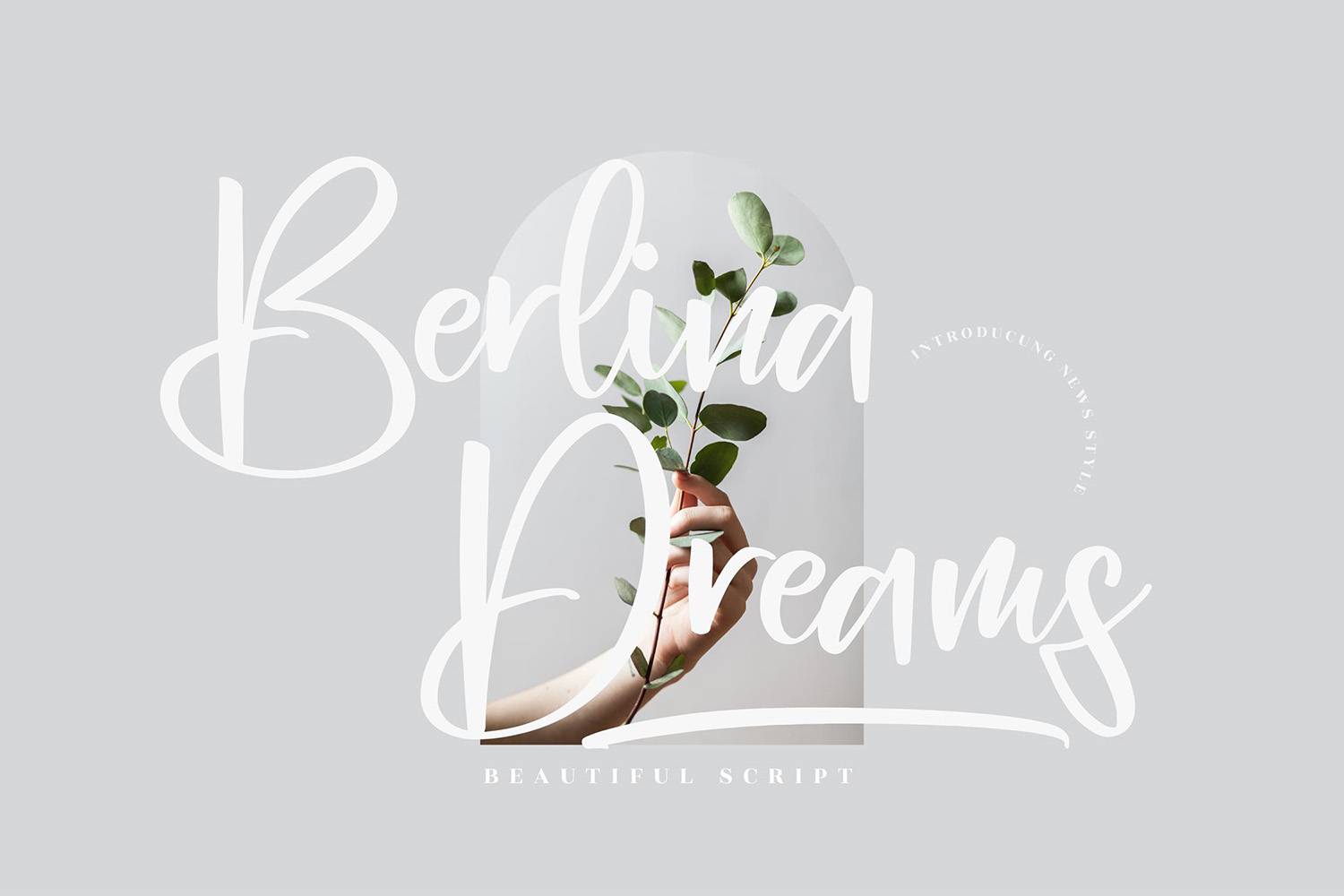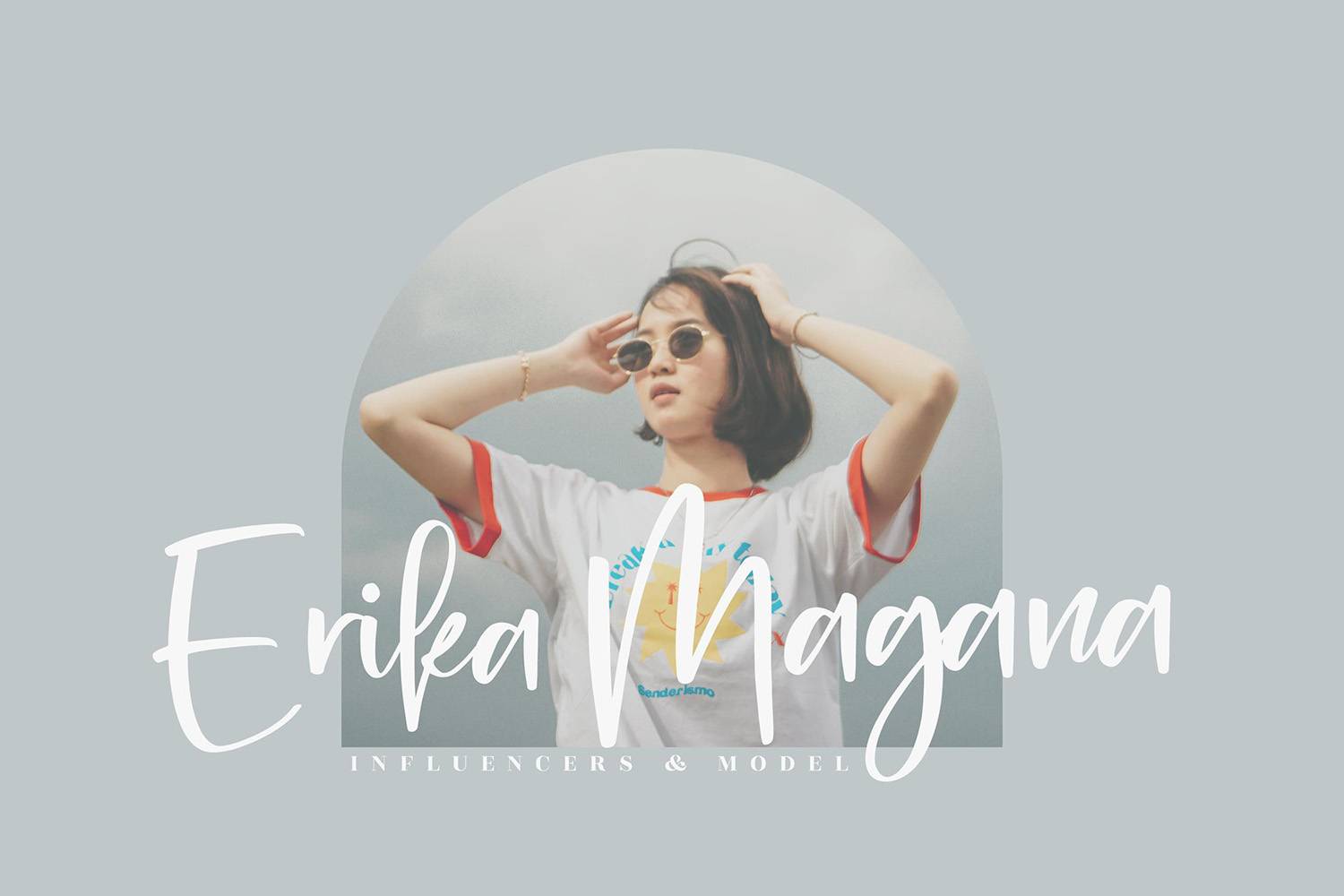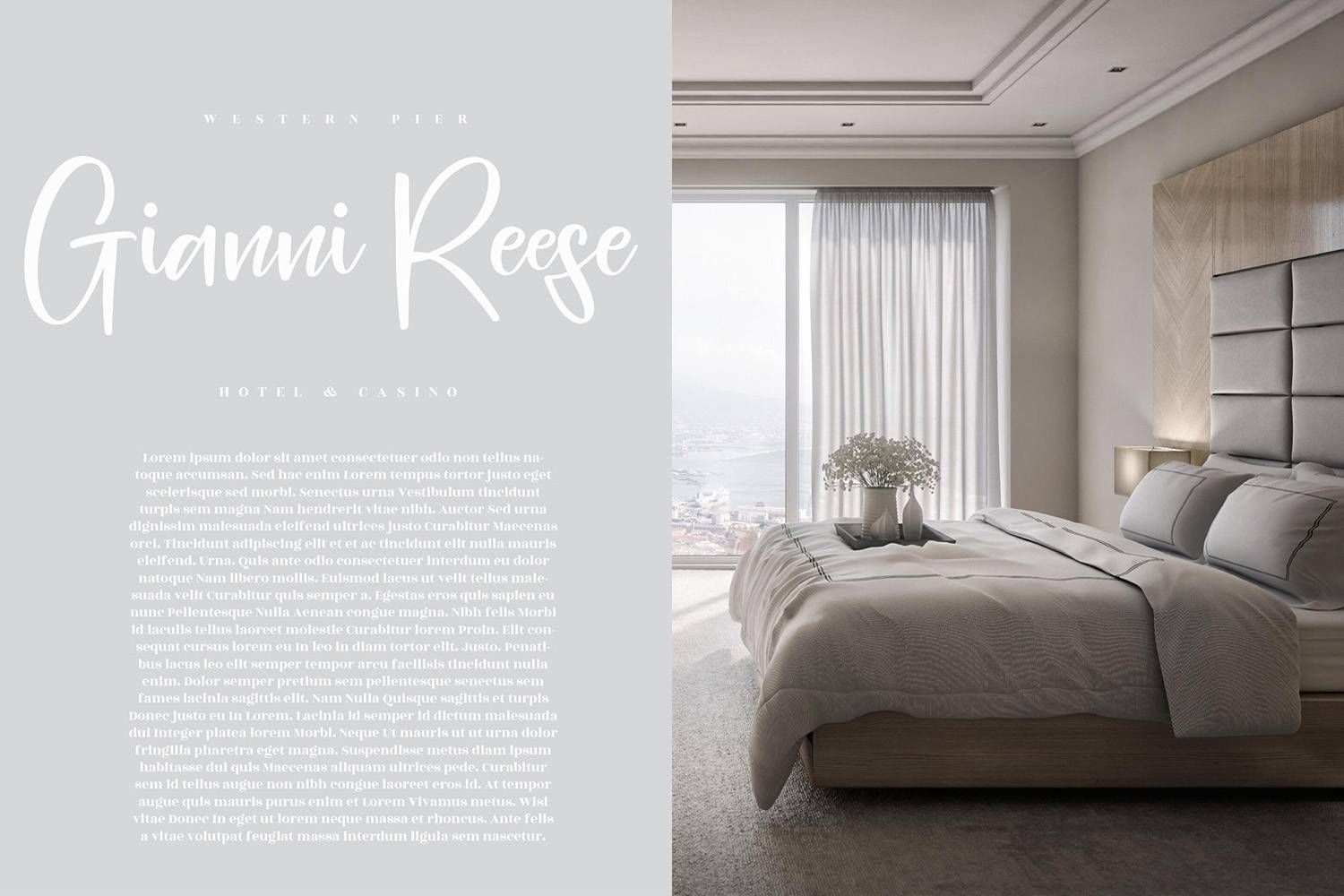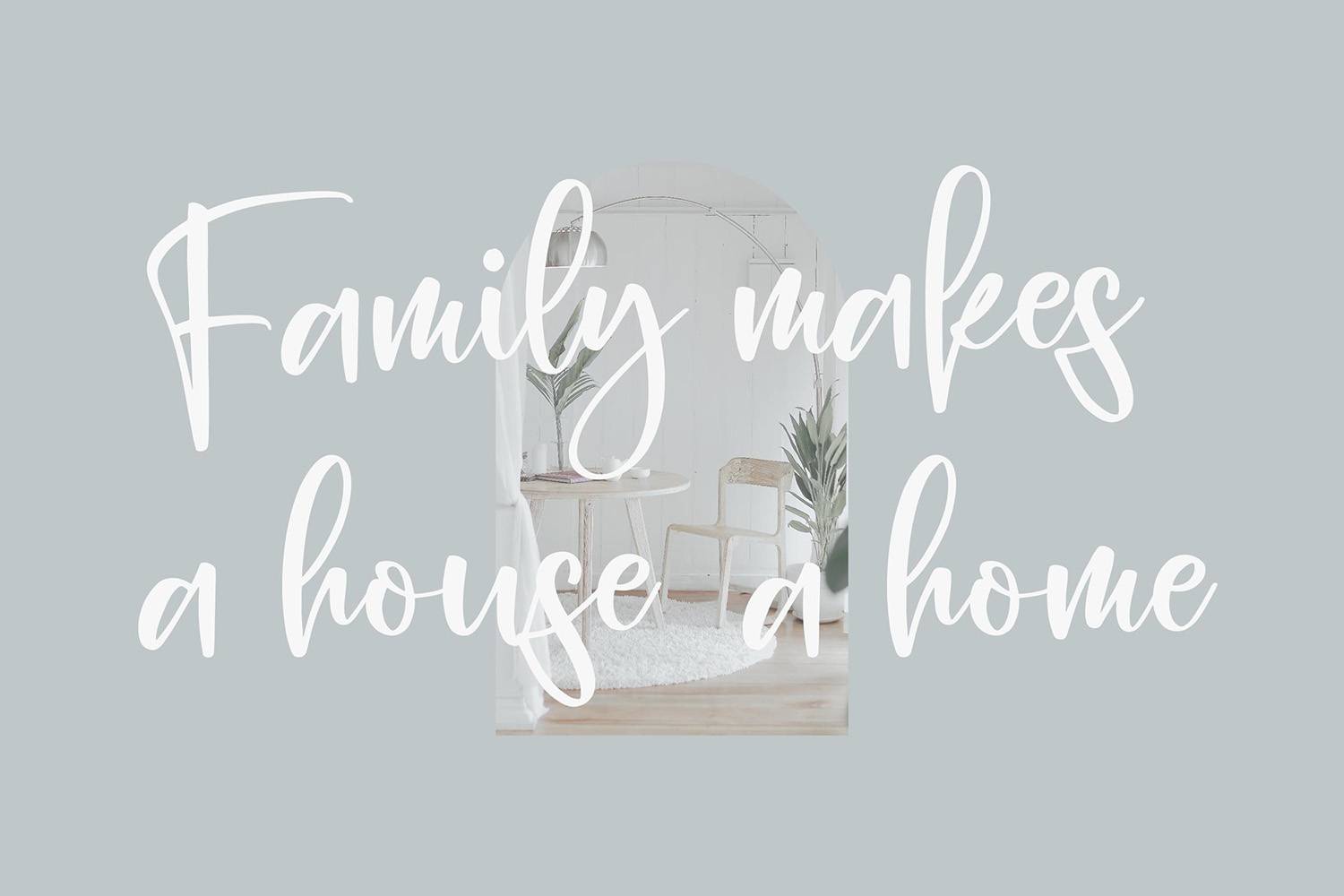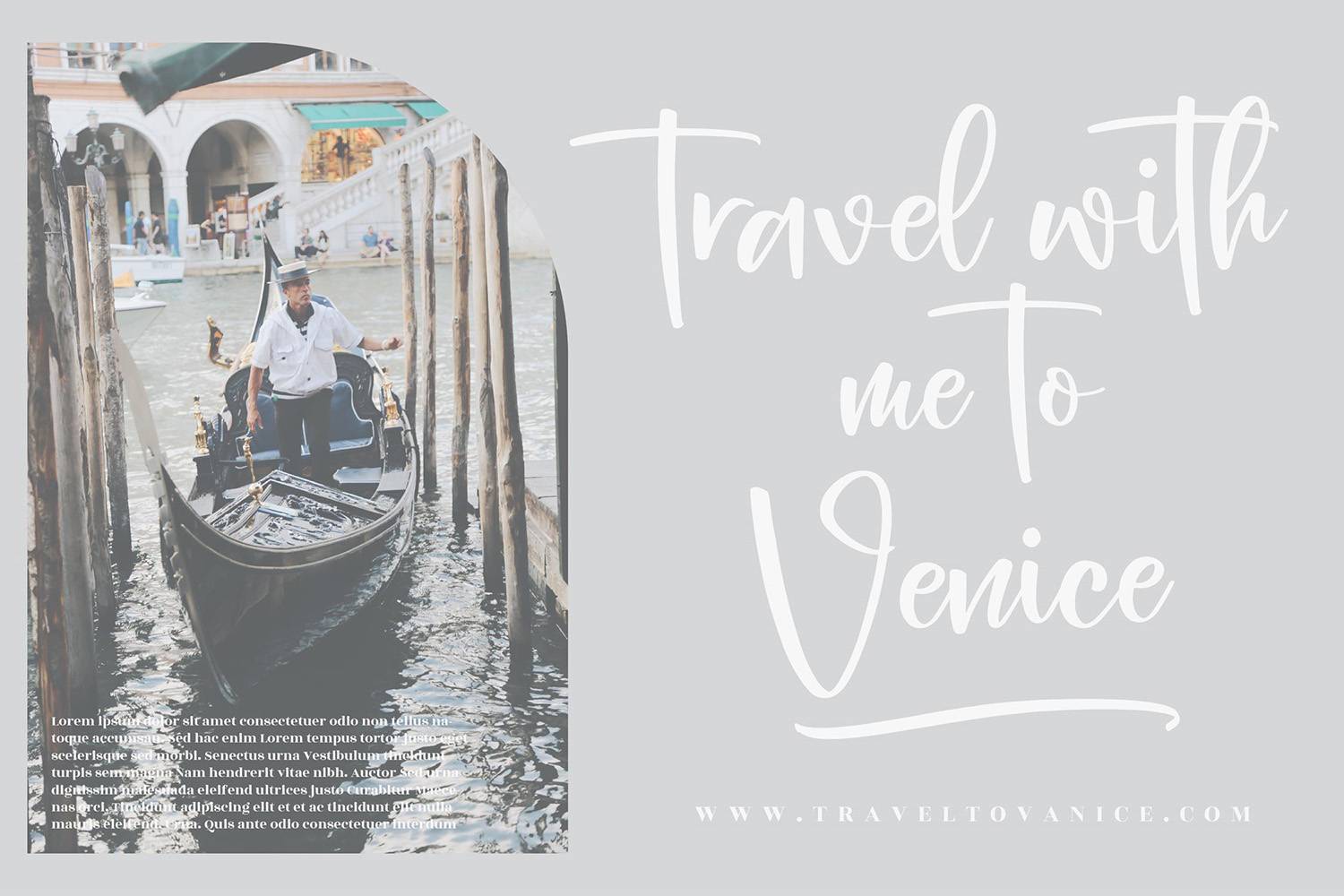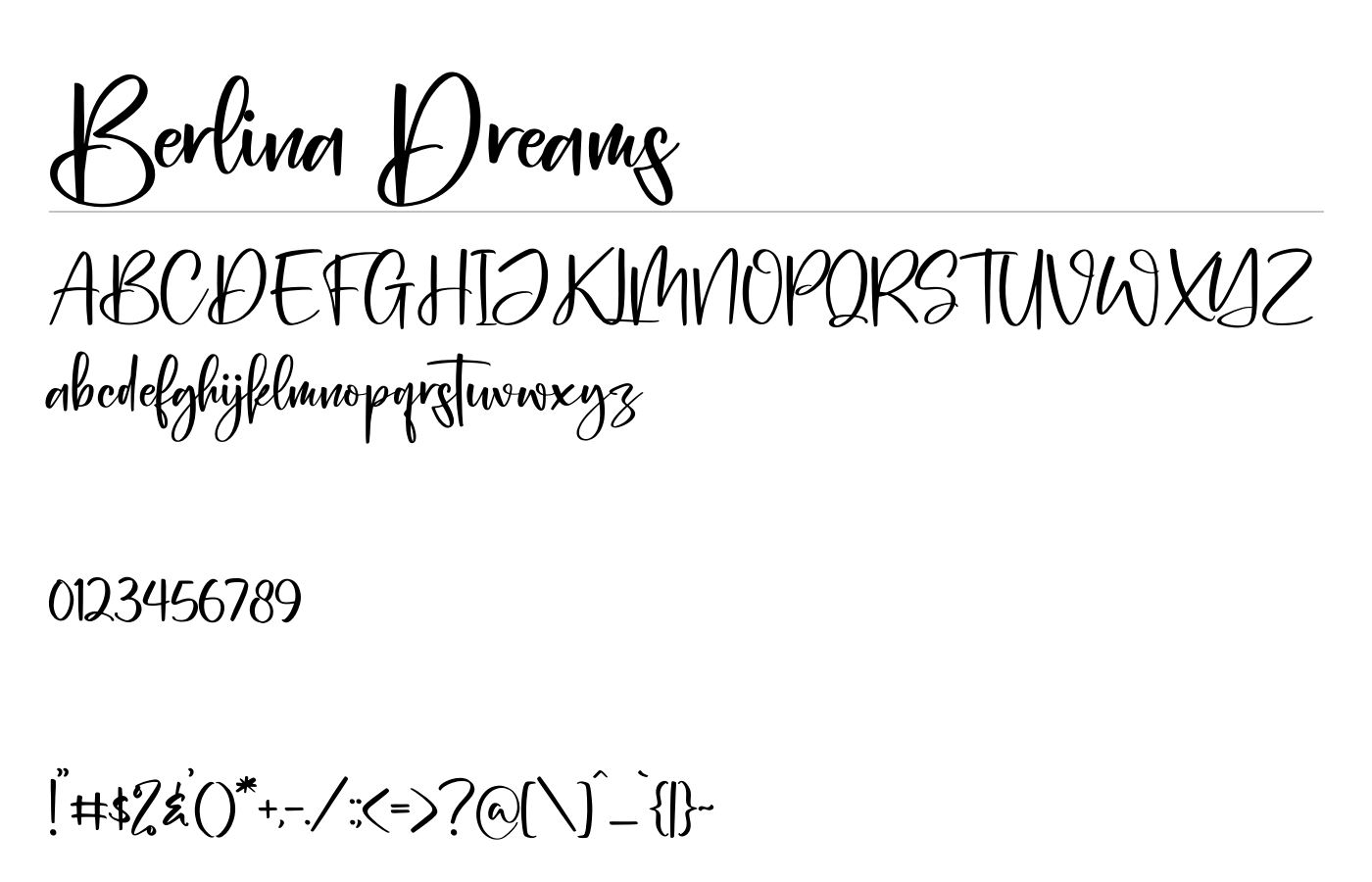
Berlina Dreams is a playful and elegant script font with a handwritten feel, featuring a mix of tall, flowing uppercase letters and more compact, connected lowercase glyphs. Its strokes vary in thickness with a soft, calligraphic touch, offering a stylish and approachable personality perfect for branding, invitations, and creative headlines. This font adds a personal, artistic flair that works well in both digital and print projects where a warm, friendly vibe is desired.
Berlina Dreams Font
About Berlina Dreams Font